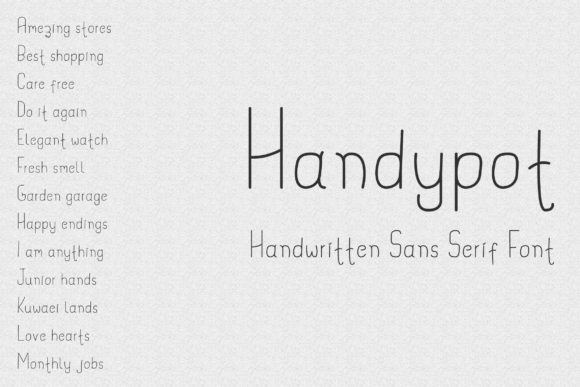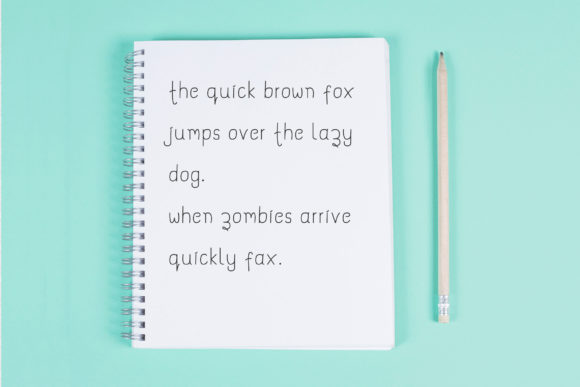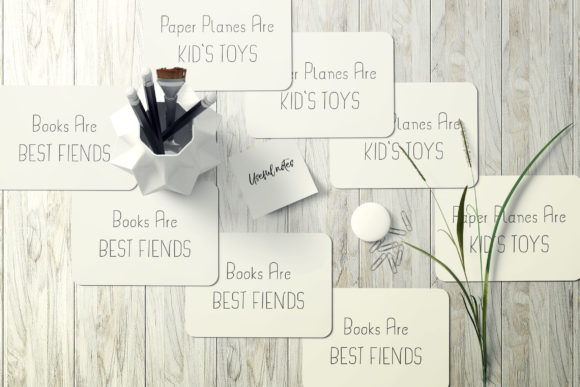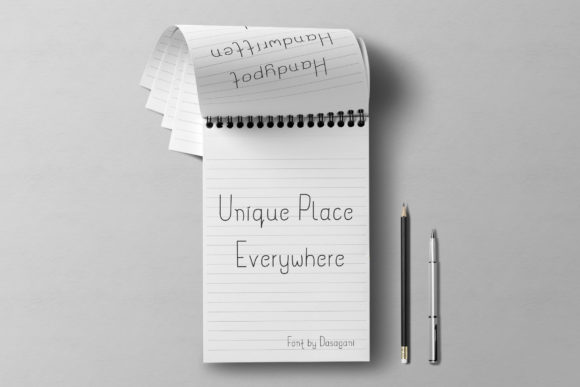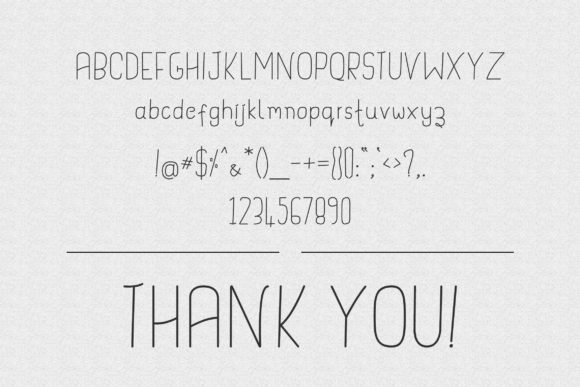
Handypot Font
About Handypot Font
The Handypot is a playful, simple and regular monoline font. It has clean letters with a great readability which can be used for kids games, apps, casual writings, books and invitations, and more!